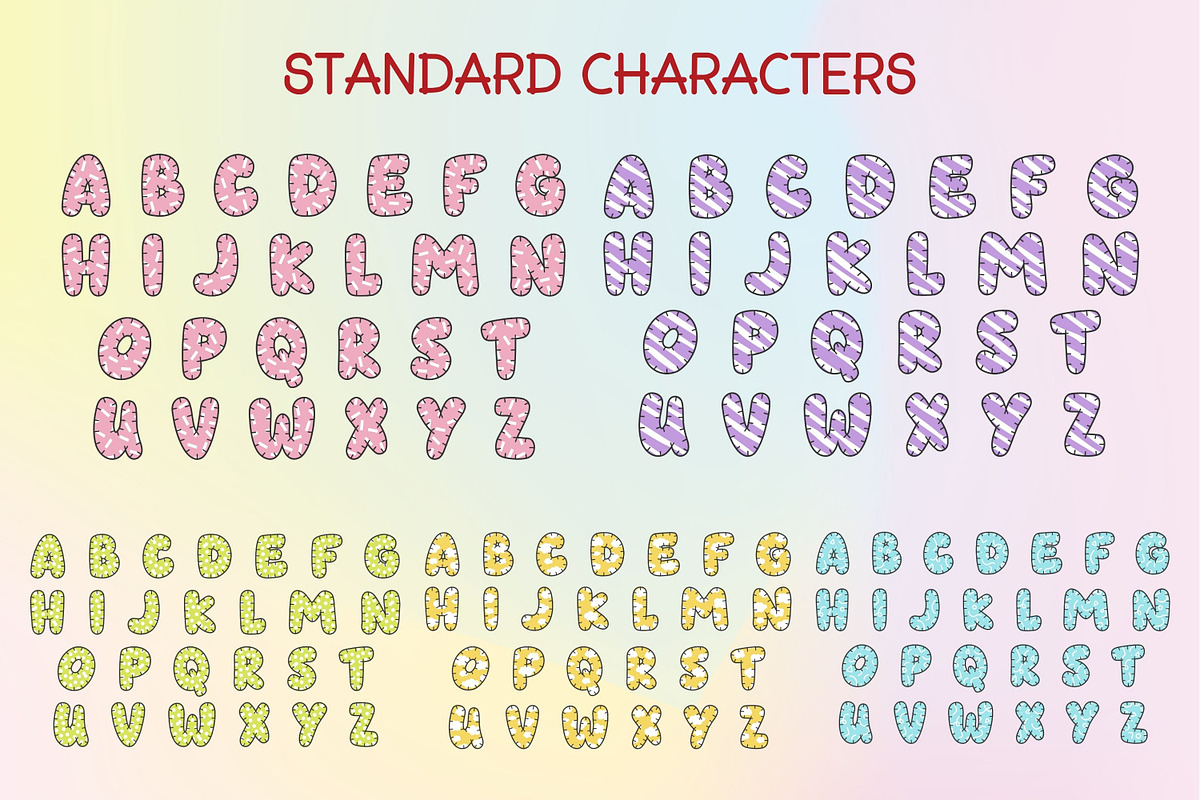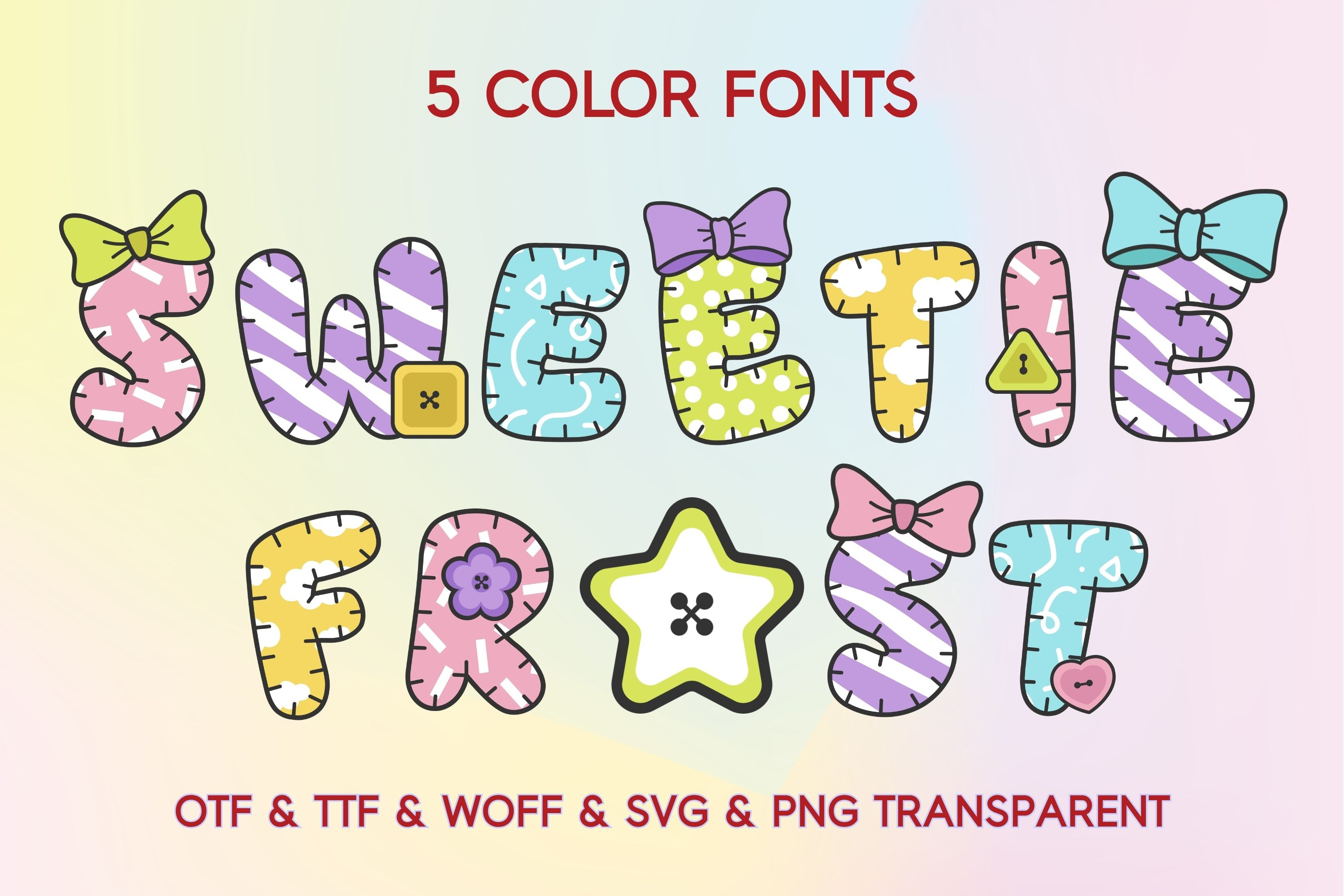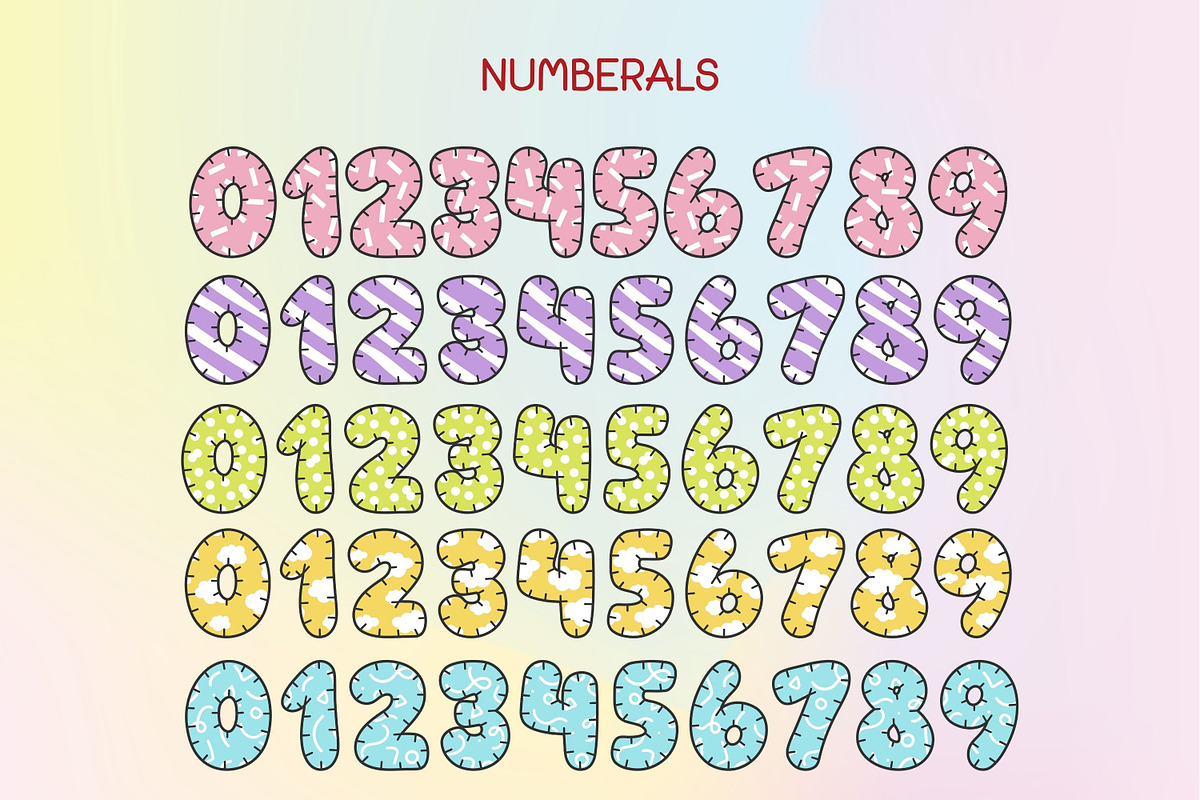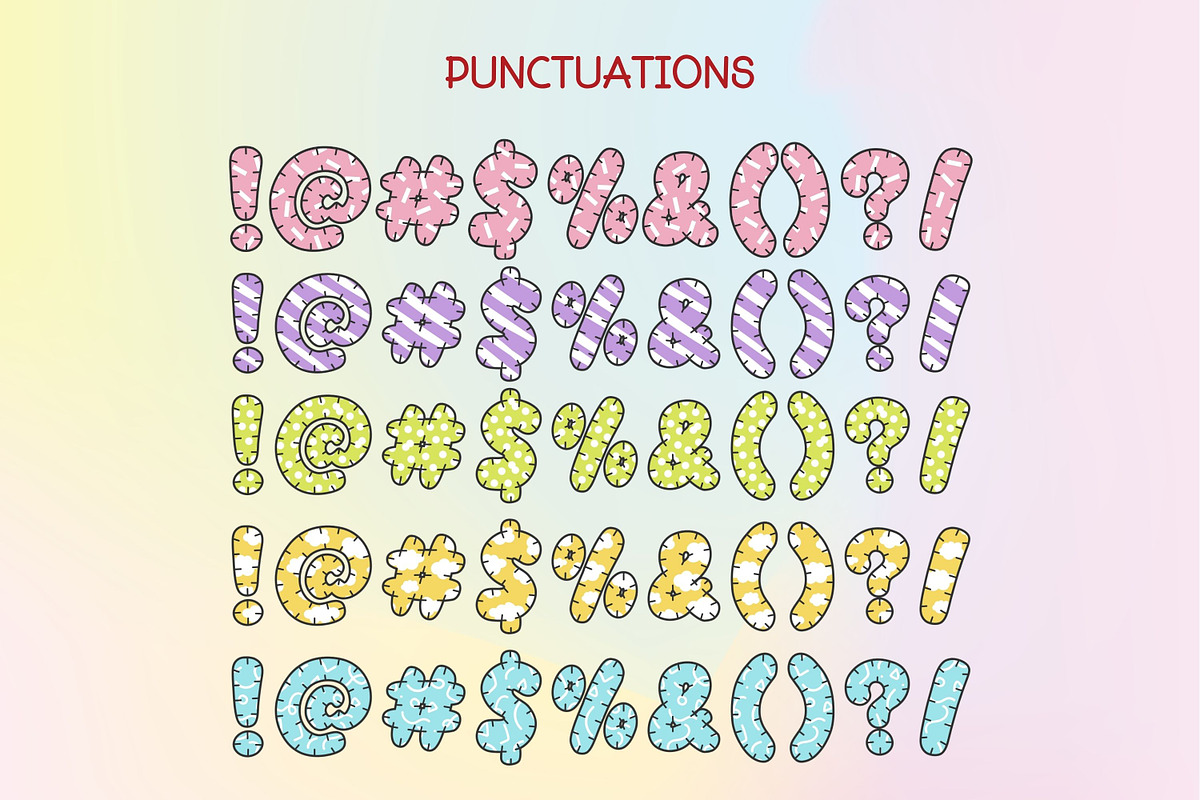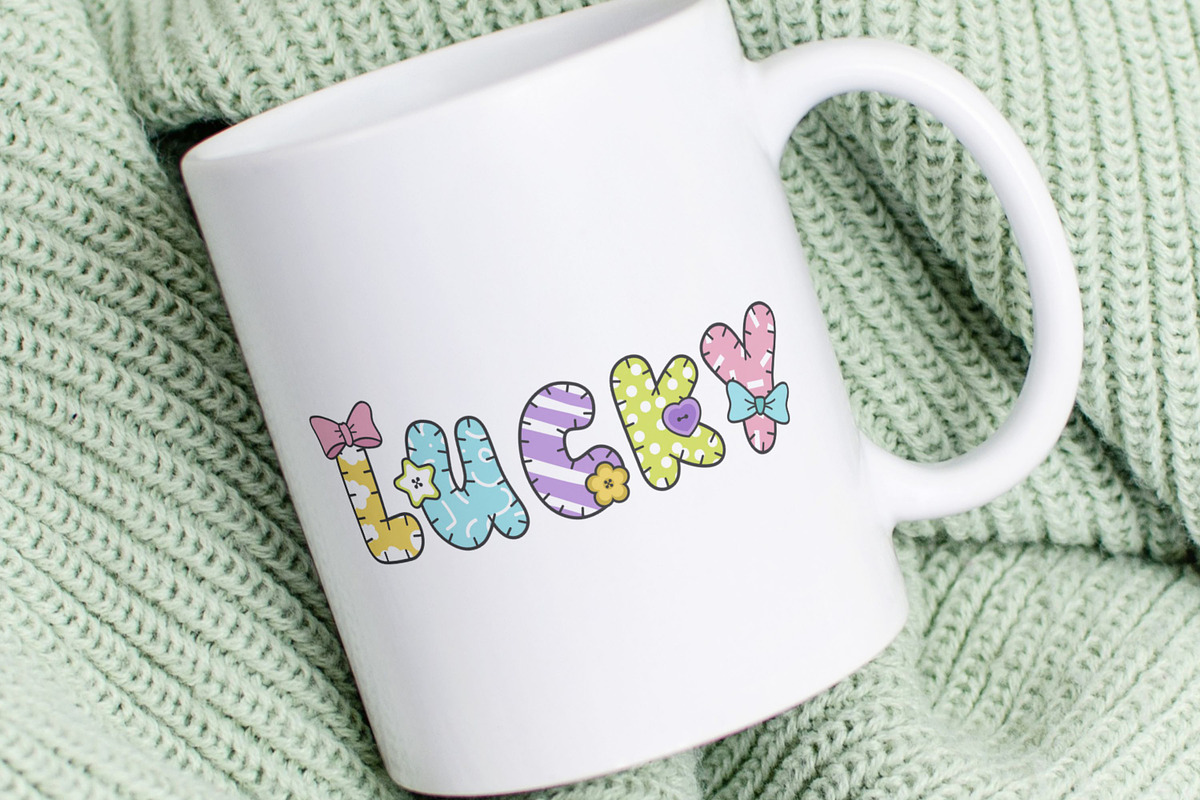
Sweetie Frost - 5 Color Fonts
Bring playful charm to your designs with this delightful bundle of 5 handcrafted color fonts. Featuring soft pastel colors, cute stitched details, whimsical patterns, and adorable decorative elements, this collection is designed for creators who love fun and cheerful typography.
Each font includes uppercase letters, numbers, punctuation, and coordinating embellishments such as bows, flowers, hearts, buttons, and icons. Ideal for children's products, nursery artwork, stickers, invitations, branding, packaging, social media content, and DIY crafts.
5 Unique Color Fonts
Bonus Decorative Elements
High-Quality Handmade Style
Baby Shower Invitations
Nursery Decor
Birthday Party Designs
Teacher Resources
Stickers & Sublimation
Scrapbooking
Greeting Cards
Kids Branding
Printables
Kawaii Design Projects
This cheerful collection makes it easy to create eye-catching designs with a sweet handmade aesthetic.